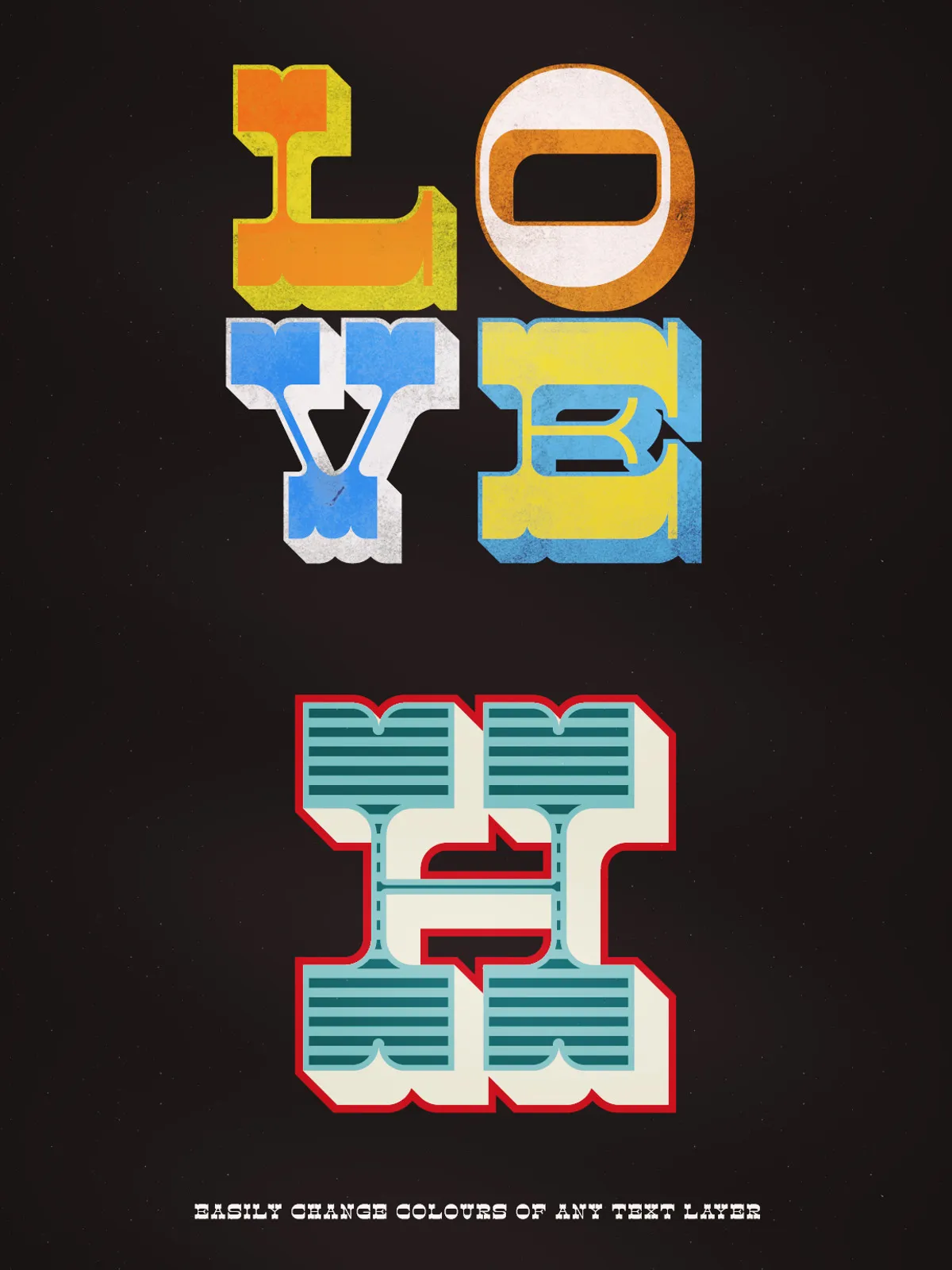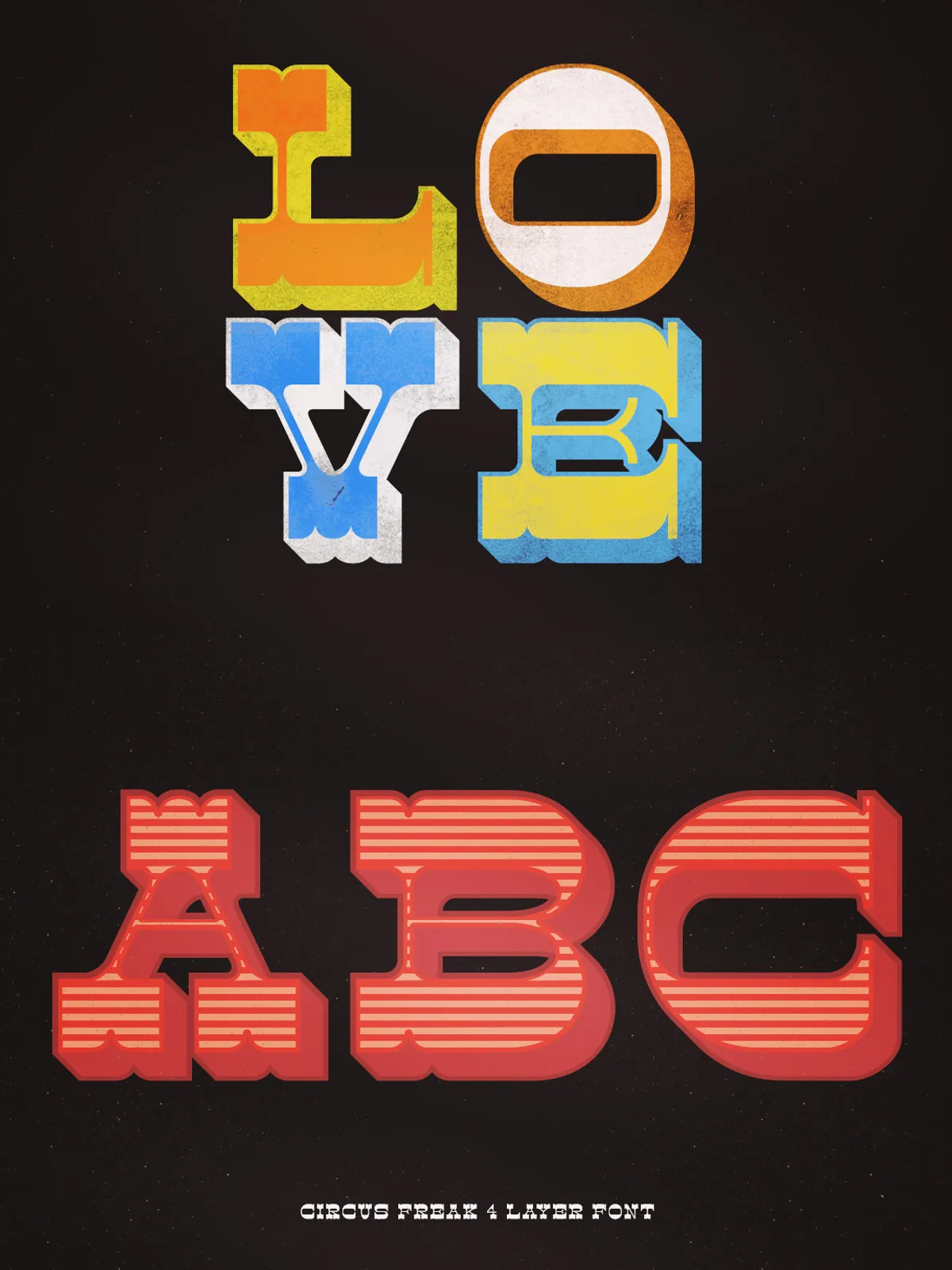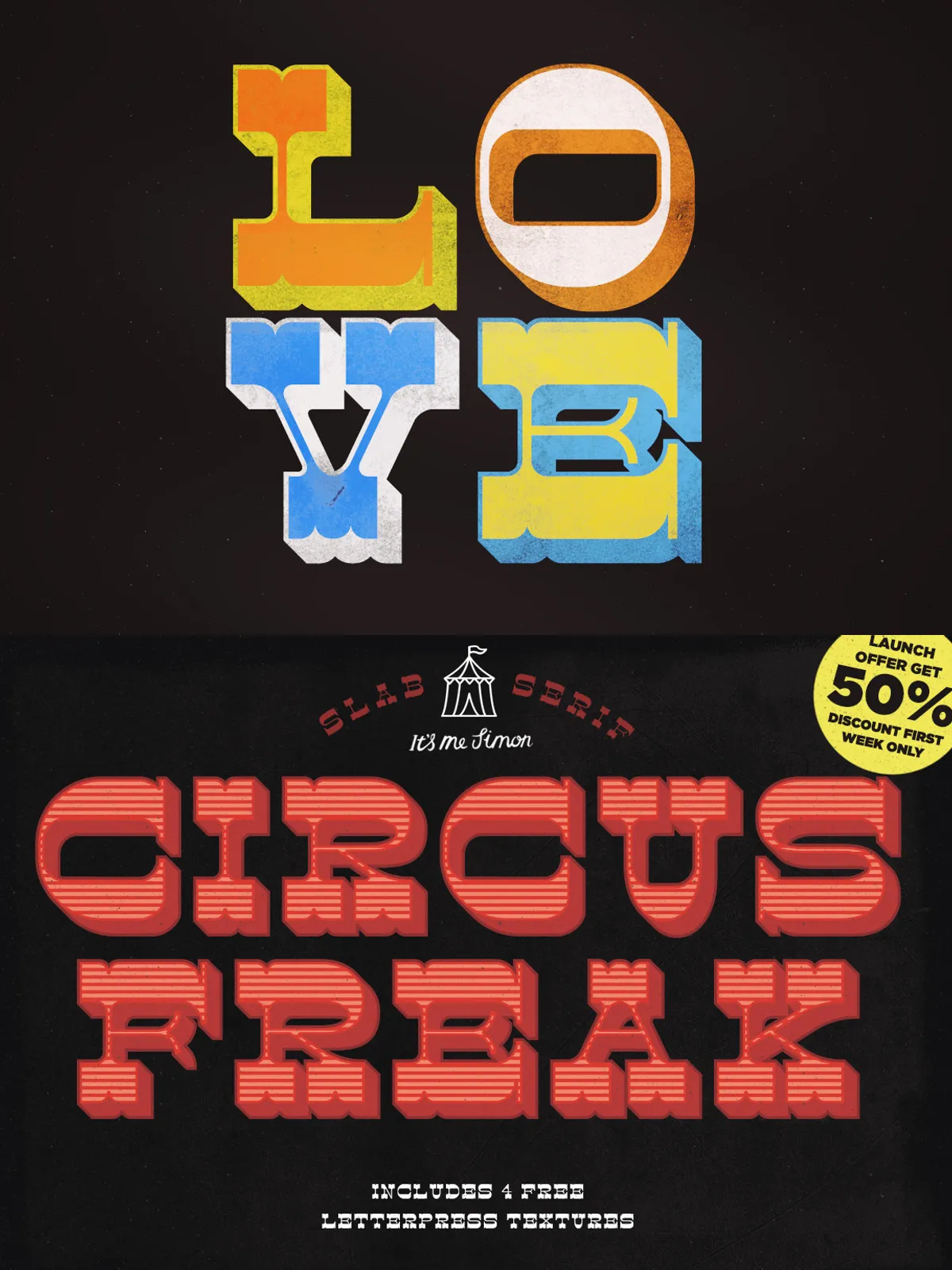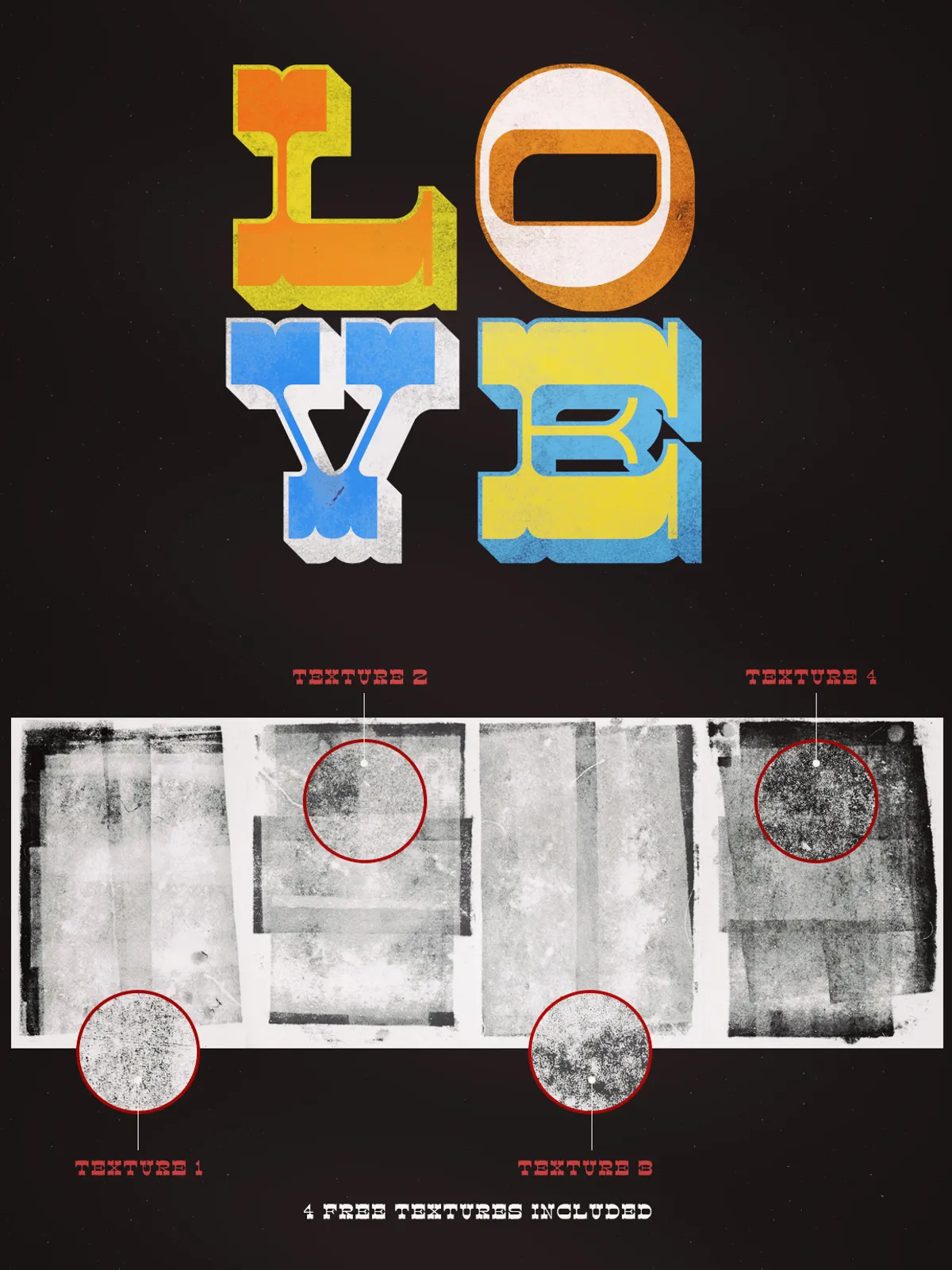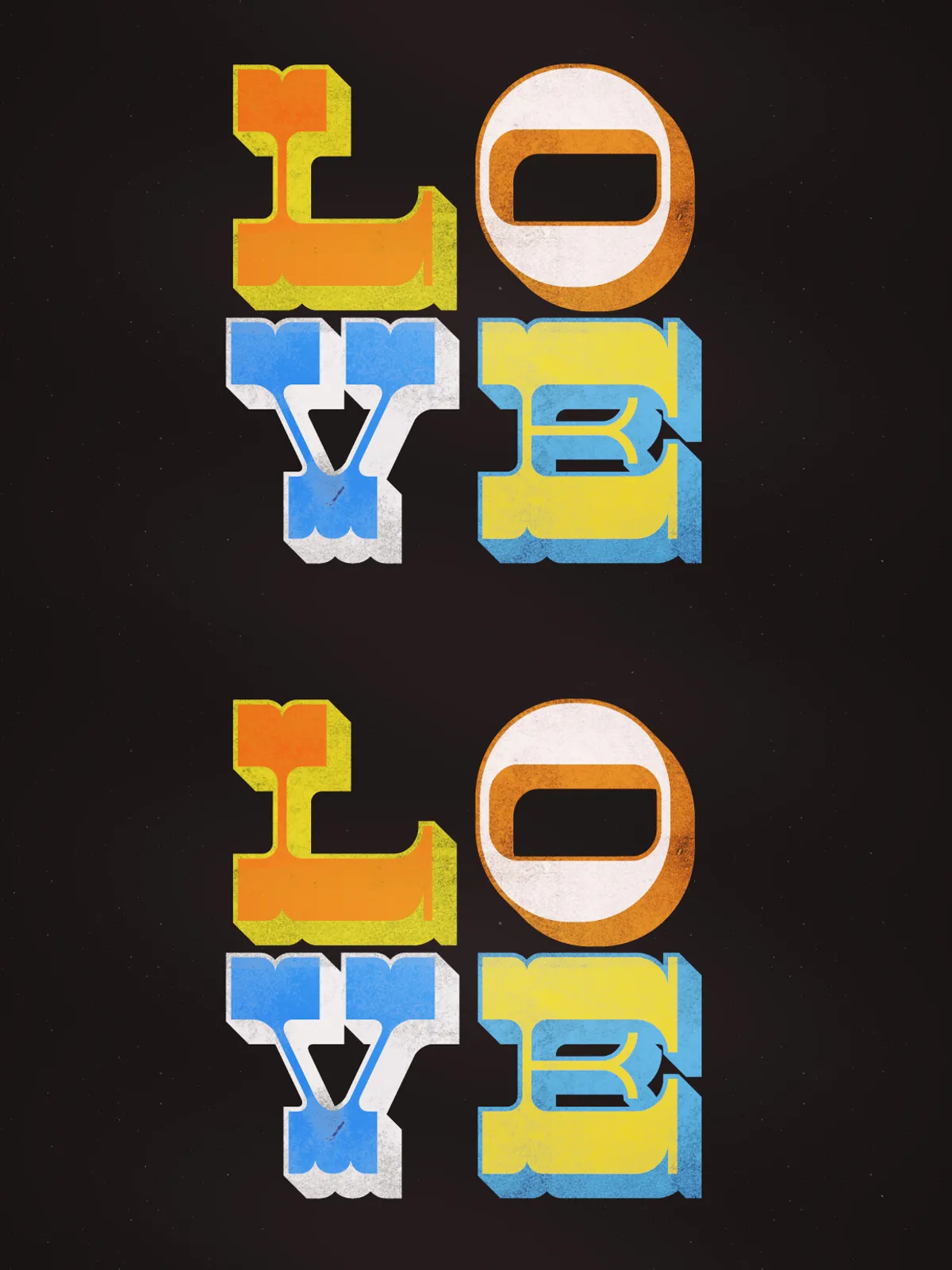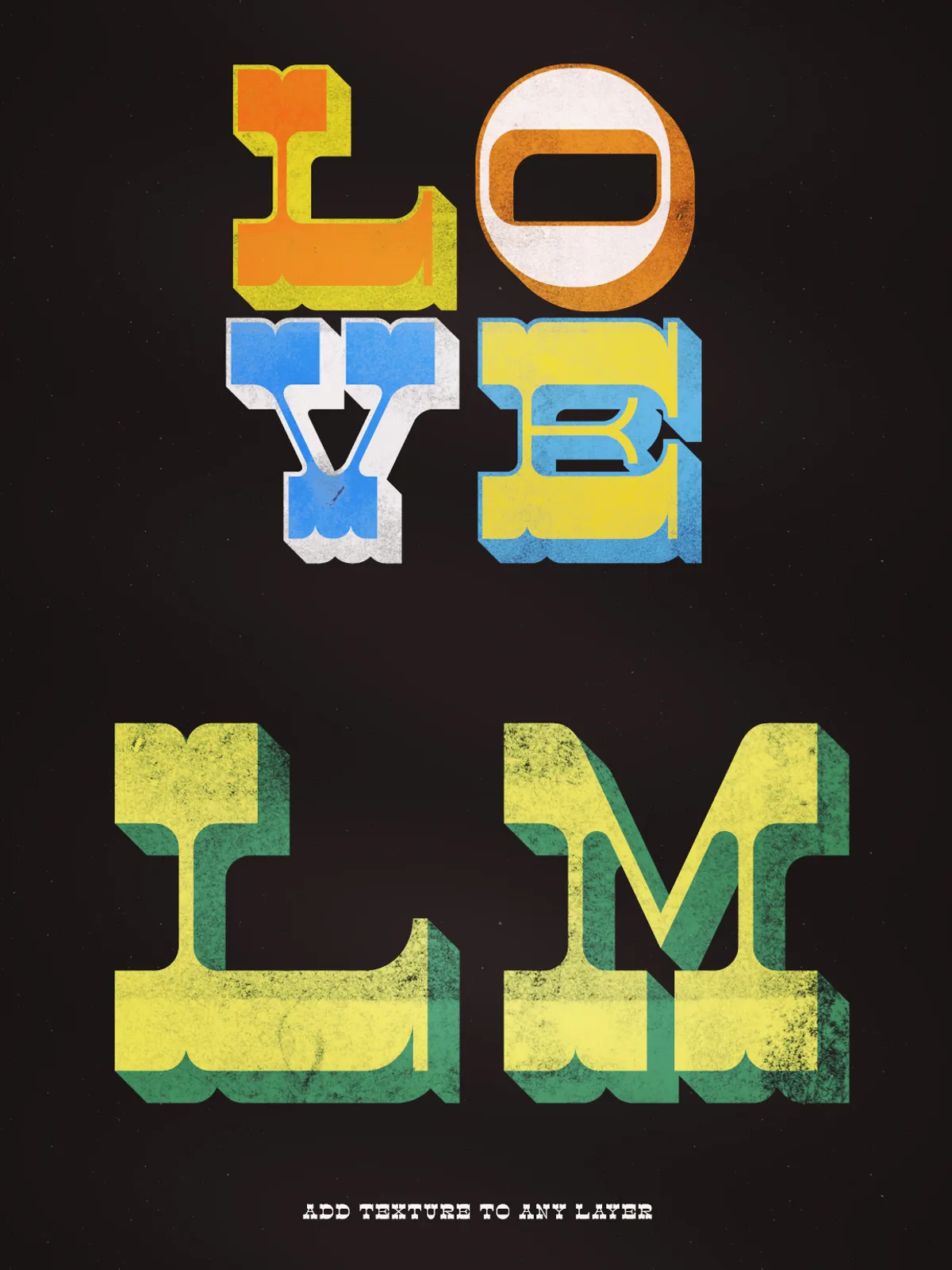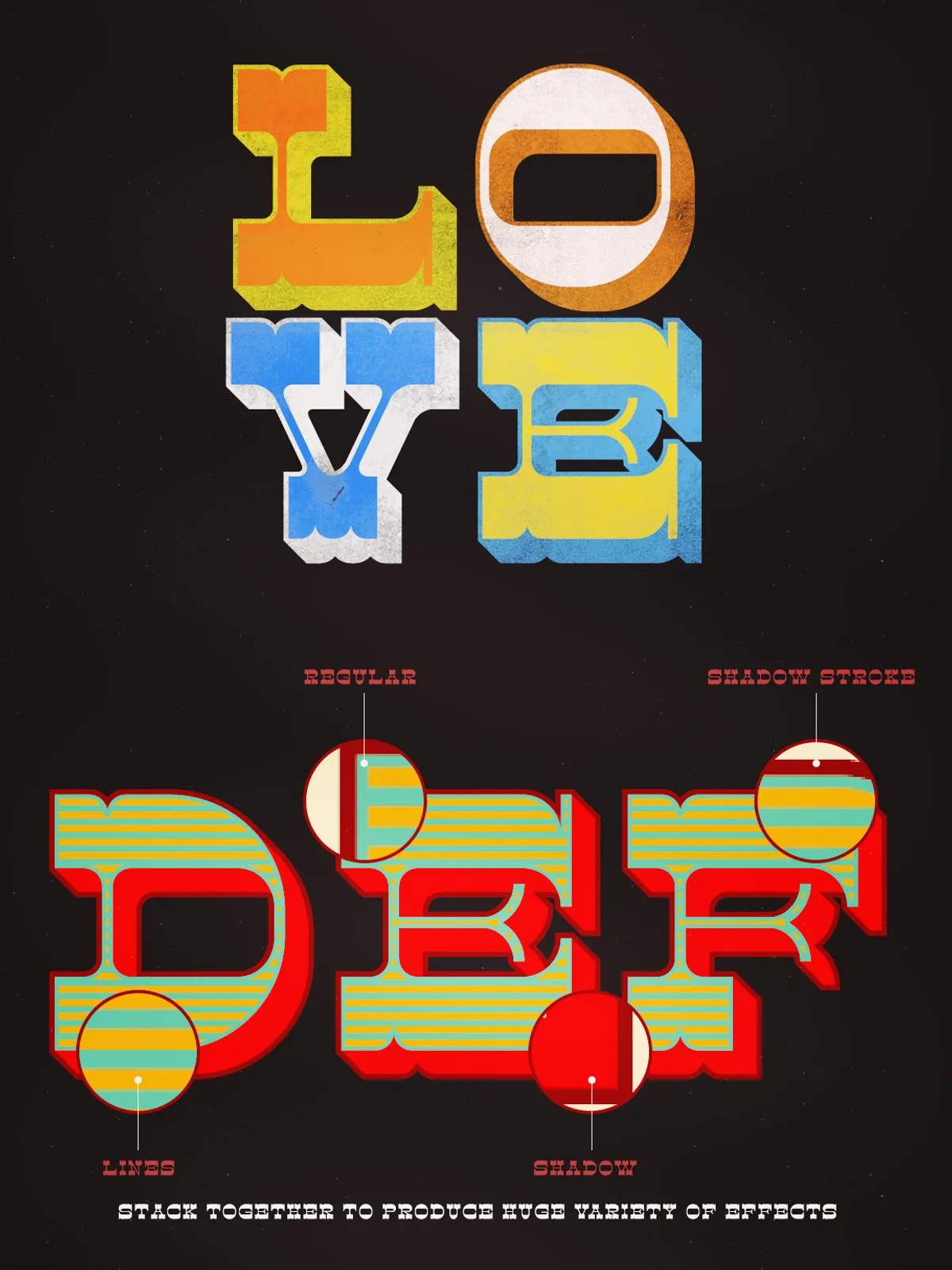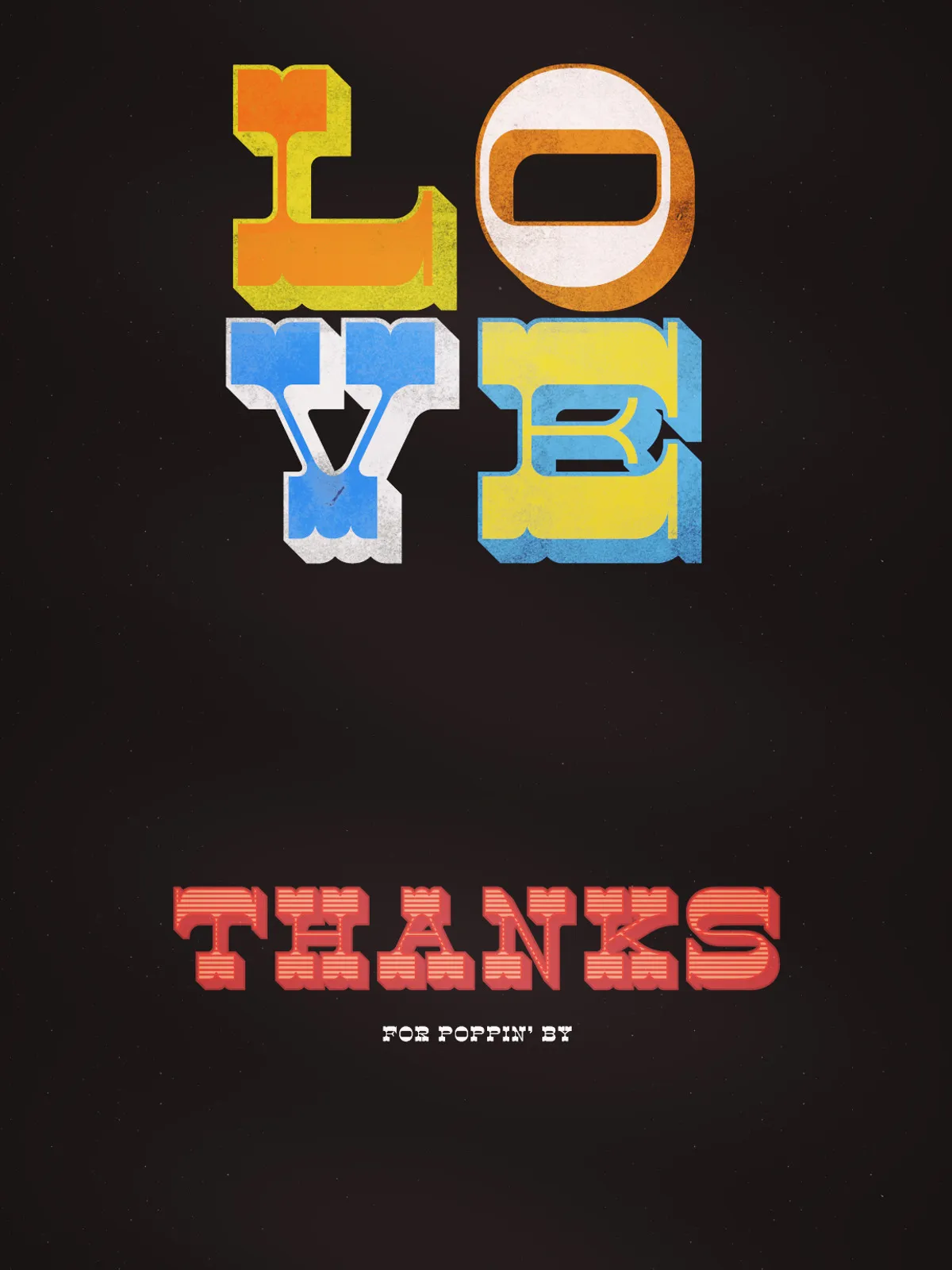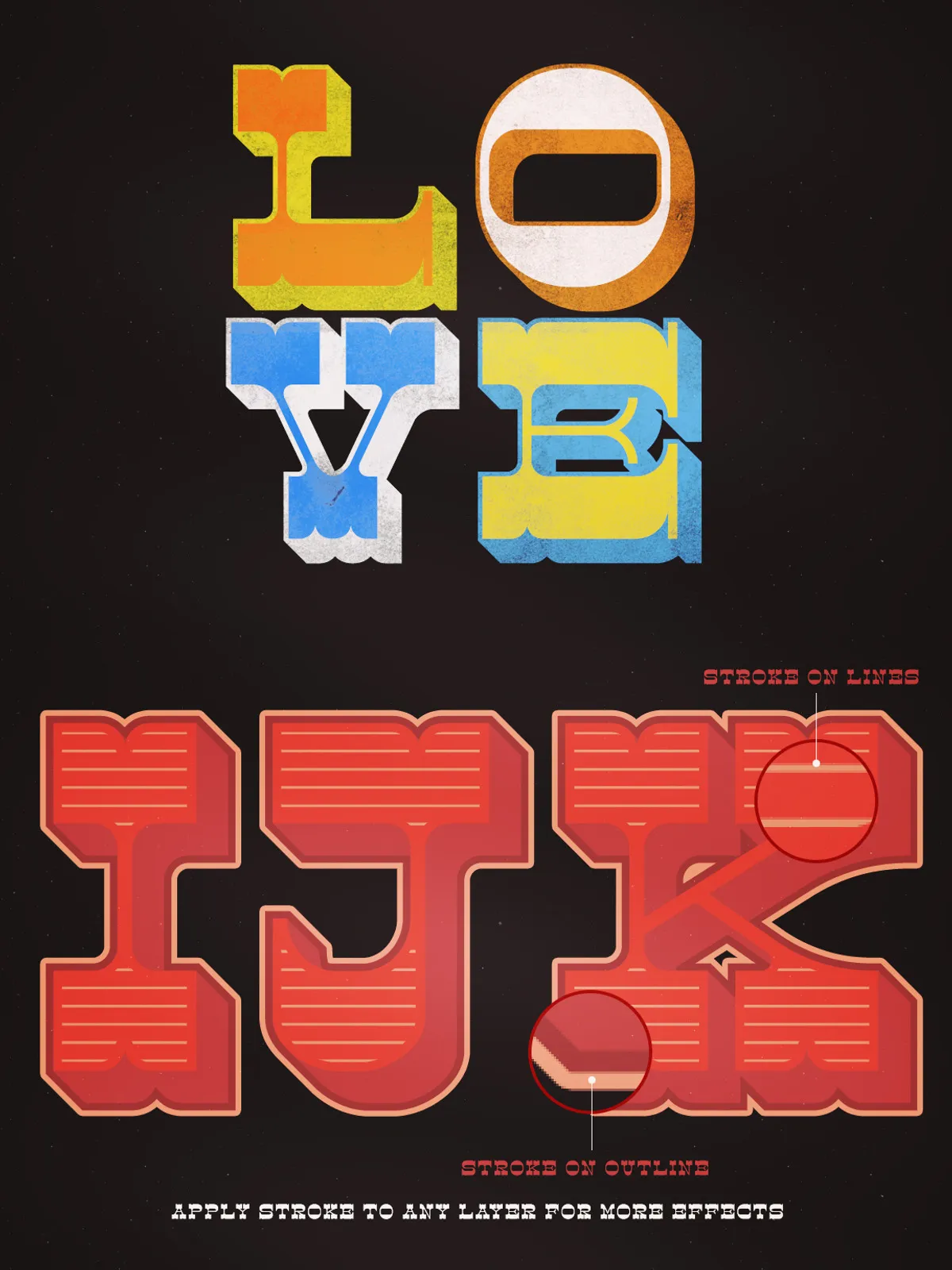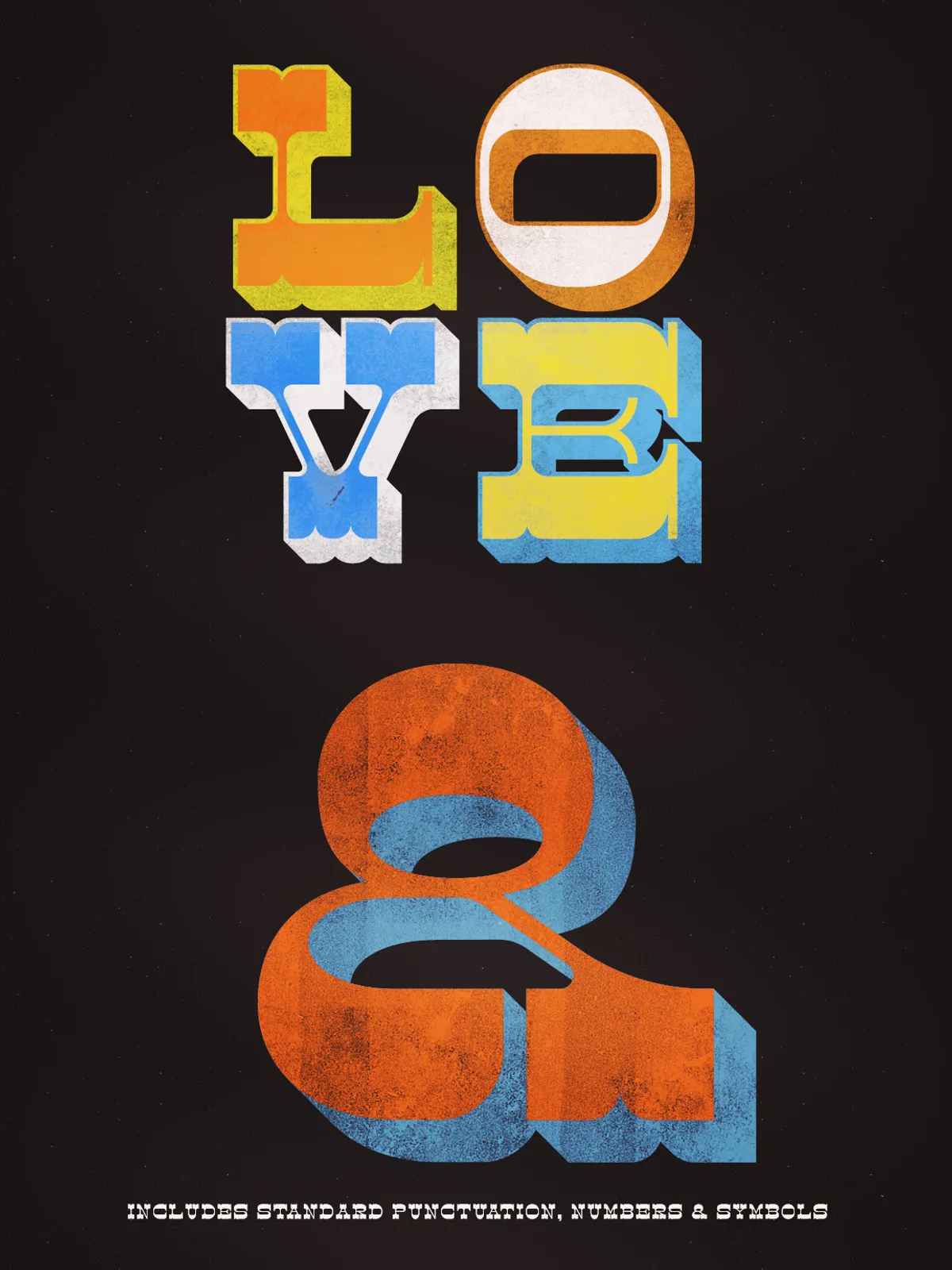
Slab Serif Font Circus Freak
Circus freak font was partly inspired by the old American chromatic wood type from the late 1800’s, and my desire to create a chromatic typeface.
It has four styles that can be layered one on top of the other to get a chromatic colour effect reminiscent of vintage letterpress printing.
The four styles include
Circus freak Regular
Circus freak Lines
Circus freak shadow
Circus freak shadow stroke
You can also add an inner or an outer stroke to any of the layers to get even more effects.
It’s old style western sensibility and thick slab serifs will add a dramatic period look to any design project.